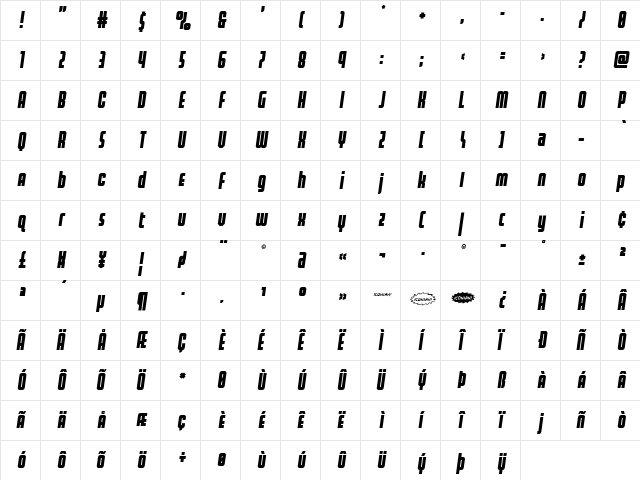
Homelander Title Semi-Italic Regular
Design Context for Homelander Title Semi-Italic Typeface
Homelander Title Semi-Italic is a composed and adaptable typeface that performs quietly and consistently across a wide range of design contexts. Its italic angle brings a sense of urgency and motion to the letterforms.
Pro Tip: Try Homelander Title Semi-Italic for annotation and caption copy alongside an upright companion — the contrast in angle creates a dynamic but ordered typographic system.